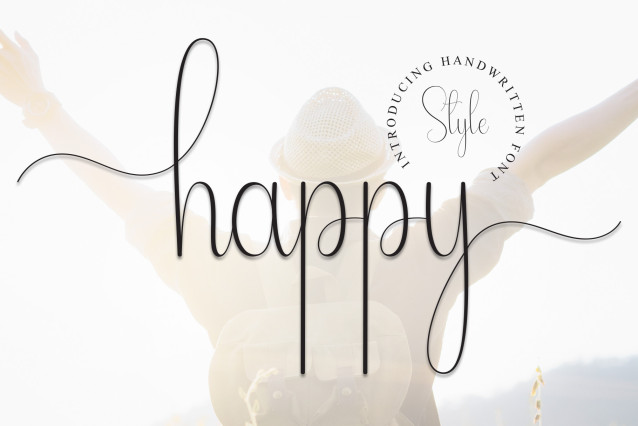
Peachy – Modern Handwritten Font, from Glorytype Studio, is a beautiful script font, suitable for any projects such as: logos, branding projects, homeware designs, product packaging, mugs, quotes, posters, shopping bags, t-shirts, book covers, name card, invitation cards, greeting cards, label, photography, watermark, special events, and all your other lovely projects that need a beautiful script taste.